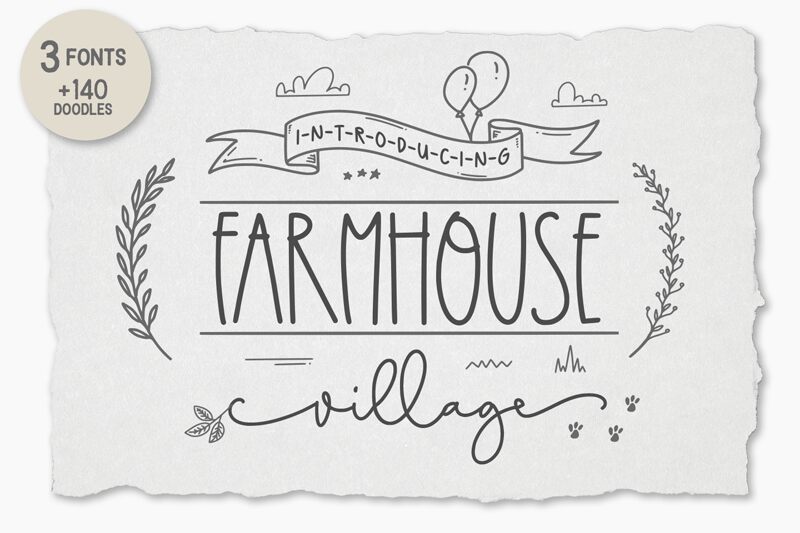
Farmhouse Village B
Farmhouse Village B font by Abo Daniel Studio is a modern handwritten font with a condensed width. Its rustic charm is found in the flat baseline, casual strokes, and uneven thickness of its lines. The minimalist design of this typeface sets it up for success in projects that appreciate raw elegance.
The whimsical character of Farmhouse Village B matches perfectly with food packaging, menu designs, event invites, greeting cards, recipe books, and cosmetics. Other notable uses include book covers for kids’ books or essays about the country life, branding for handmade products, as well as blog headers and social media posts.